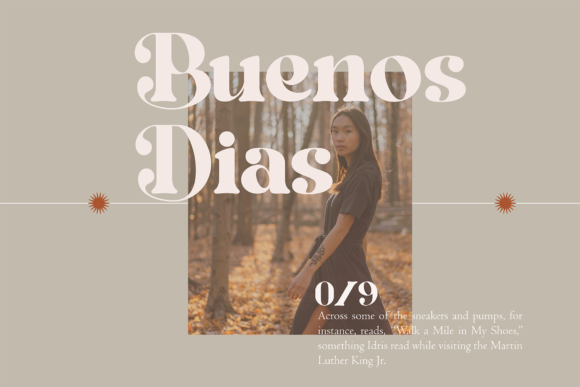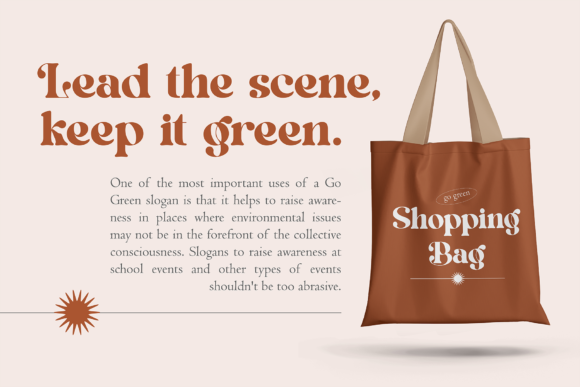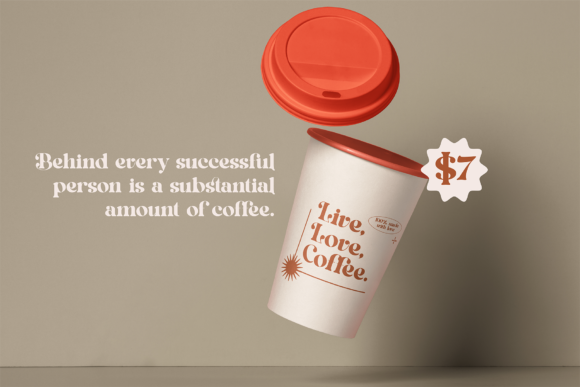
Introduction to Quarisma Font
As designers, we’ve all been there – staring at a blank canvas, trying to bring our creative vision to life. It’s that moment when the right font can make all the difference. Imagine a font that’s bold, yet elegant; modern, yet timeless. A font that can elevate your project from good to great, making your words stand out against a transparent background.
Enter Quarisma Font, a game-changing design resource that’s set to revolutionize the way we think about typography. With its high-quality, modern serif design, Quarisma Font is perfect for titles, headings, and any creative project that needs a little extra oomph. And the best part? It’s available for free download, making it a valuable asset for designers of all levels.
Key Features of Quarisma Font
- Unique, hand-drawn design perfect for creative projects that require a personal touch.
- Transparent background option allows for seamless integration into various design elements.
- Includes a comprehensive set of characters, including uppercase and lowercase letters, numbers, and punctuation marks.
- Designed to be highly legible, making it ideal for use in body text, headings, and titles.
Honest Review: Quarisma Font
As a designer, I’m always on the lookout for high-quality design resources to enhance my creative projects. The Quarisma Font has been a recent addition to my toolkit, and I’m excited to share my honest review.
- What works well: ✨ The Quarisma Font offers a wide range of characters and languages, making it a versatile option for designers working on diverse projects.
- ✨ The font’s sleek and modern design is perfect for contemporary creative projects, from logos to brochures.
- ✨ The font’s transparent background allows for seamless integration with other design elements.
While the Quarisma Font is a valuable addition to any designer’s library, there are a few limitations to consider: ⚠️ The font may not be suitable for more traditional or formal designs, as it can come across as too modern.
Overall, I’m impressed with the Quarisma Font’s quality and versatility. As a design resource, it’s a great option for designers looking to add a touch of modernity to their creative projects.
How to Use Quarisma Font
Tips for Getting the Most Out of Quarisma Font
To get the most out of the Quarisma Font, experiment with different font sizes, styles, and colors to create visually appealing designs. Use the font’s transparent background feature to create unique and creative projects.
Common Use Cases for Quarisma Font
The Quarisma Font is ideal for creative projects, such as logo designs, business cards, and brochures. Its high quality features make it perfect for professional-looking presentations and documents. You can also use the font in social media graphics, posters, and flyers to create eye-catching designs.